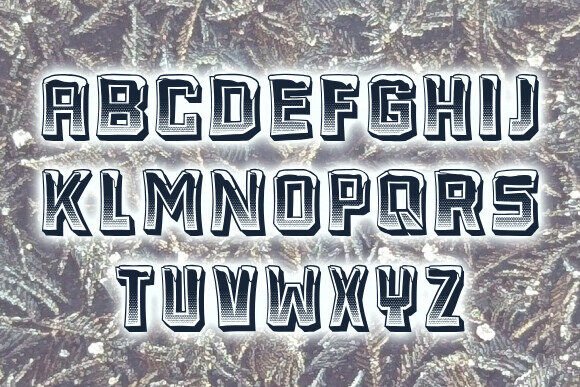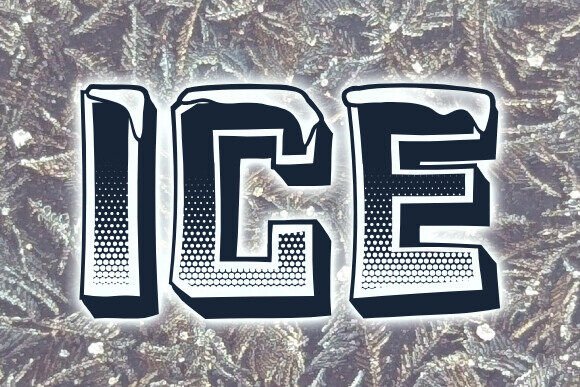
Discover the Magic of Freezing Font: Elevate Your Winter Designs
As the winter season approaches, designers and crafters are on the lookout for the perfect typography to capture the essence of the coldest time of the year. If you’re searching for a font that embodies the spirit of winter, look no further than the Freezing Font. This awesome winter font is designed to add a touch of frosty charm to any design, making it an excellent choice for posters, flyers, t-shirts, and more.
The Charm of Freezing Font
Freezing Font is a unique and versatile typeface that is sure to make your designs stand out. Its frosty, icy aesthetic is reminiscent of a winter wonderland, evoking feelings of crisp air, snowflakes, and cozy nights by the fire. The font’s intricate details and frosted texture give it a distinctive look that will add a touch of magic to any design.
Why Choose Freezing Font?
So, what makes Freezing Font so special? Here are just a few reasons why designers and crafters love this winter font:
- Uniqueness: Freezing Font is a one-of-a-kind typeface that will set your designs apart from the rest. Its distinctive look and feel make it perfect for creating eye-catching posters, flyers, and other materials.
- Versatility: Whether you’re designing a winter-themed poster, a festive flyer, or a cozy t-shirt, Freezing Font is the perfect choice. Its versatility makes it suitable for a wide range of design projects.
Design Ideas with Freezing Font
Now that you’ve discovered the magic of Freezing Font, it’s time to get creative! Here are some design ideas to get you started:
- Winter Posters: Create eye-catching posters that capture the essence of winter. Use Freezing Font to add a touch of frosty charm to your designs.
- Frosty Flyers: Design festive flyers that will make your audience feel like they’re experiencing a winter wonderland. Freezing Font is the perfect choice for creating flyers that stand out.
- Cozy T-Shirts: Add a touch of winter magic to your t-shirt designs with Freezing Font. This font is perfect for creating cozy, winter-themed apparel.
Tips for Using Freezing Font
To get the most out of Freezing Font, here are some tips to keep in mind:
- Experiment with colors: Freezing Font looks great in a range of colors, from icy blues and whites to warm winter reds and greens. Experiment with different color combinations to find the perfect look for your design.
- Play with textures: Add an extra layer of depth to your design by experimenting with different textures. Freezing Font looks great with frosty, snowflake-inspired textures.
- Keep it simple: Don’t be afraid to keep your design simple and clean. Freezing Font is a bold, eye-catching font that can stand on its own.
Freezing Font is an awesome winter font that will add a touch of magic to any design. Its unique, frosty aesthetic makes it perfect for creating eye-catching posters, flyers, t-shirts, and more. Whether you’re a designer or a crafter, Freezing Font is a must-have font for any winter design project. So why wait? Download Freezing Font today and start creating your own winter wonderland designs!